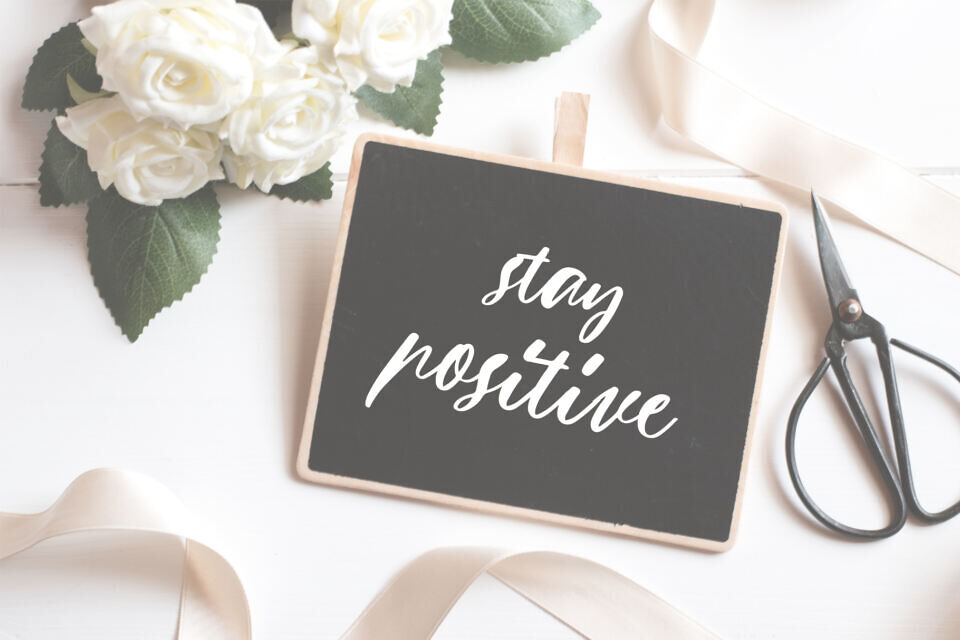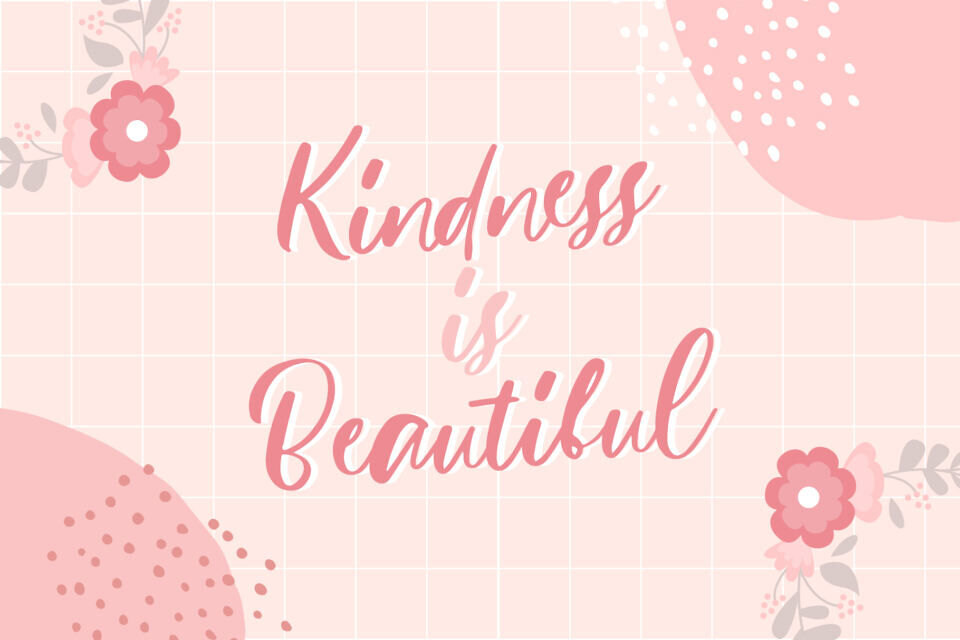
Simple Things Font is a minimalist and versatile typeface designed to bring elegance and clarity to your designs. With its clean letterforms and timeless style, this font is perfect for a variety of applications, from branding to editorial design. Elevate your projects with the understated sophistication of the Simple Things Font.